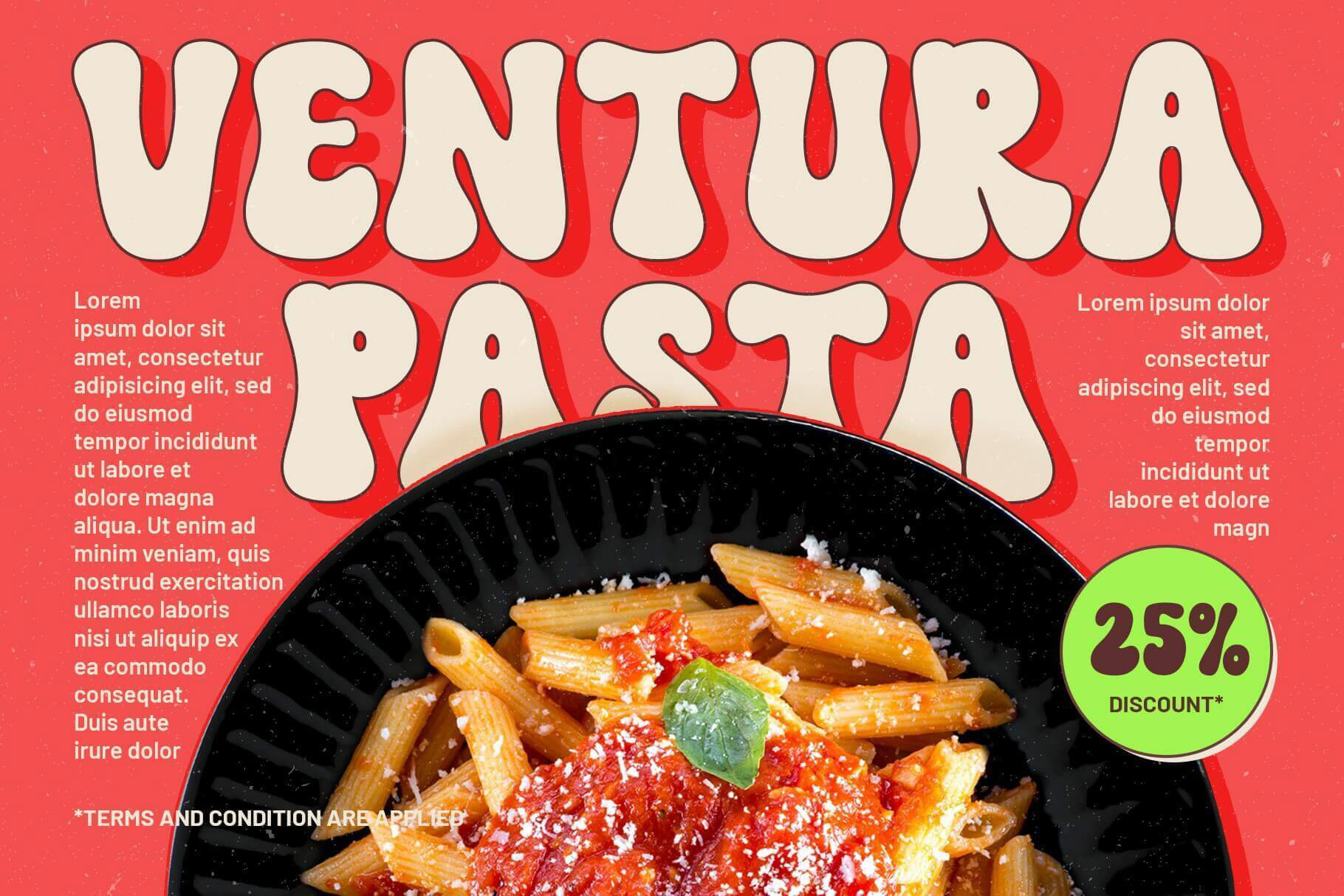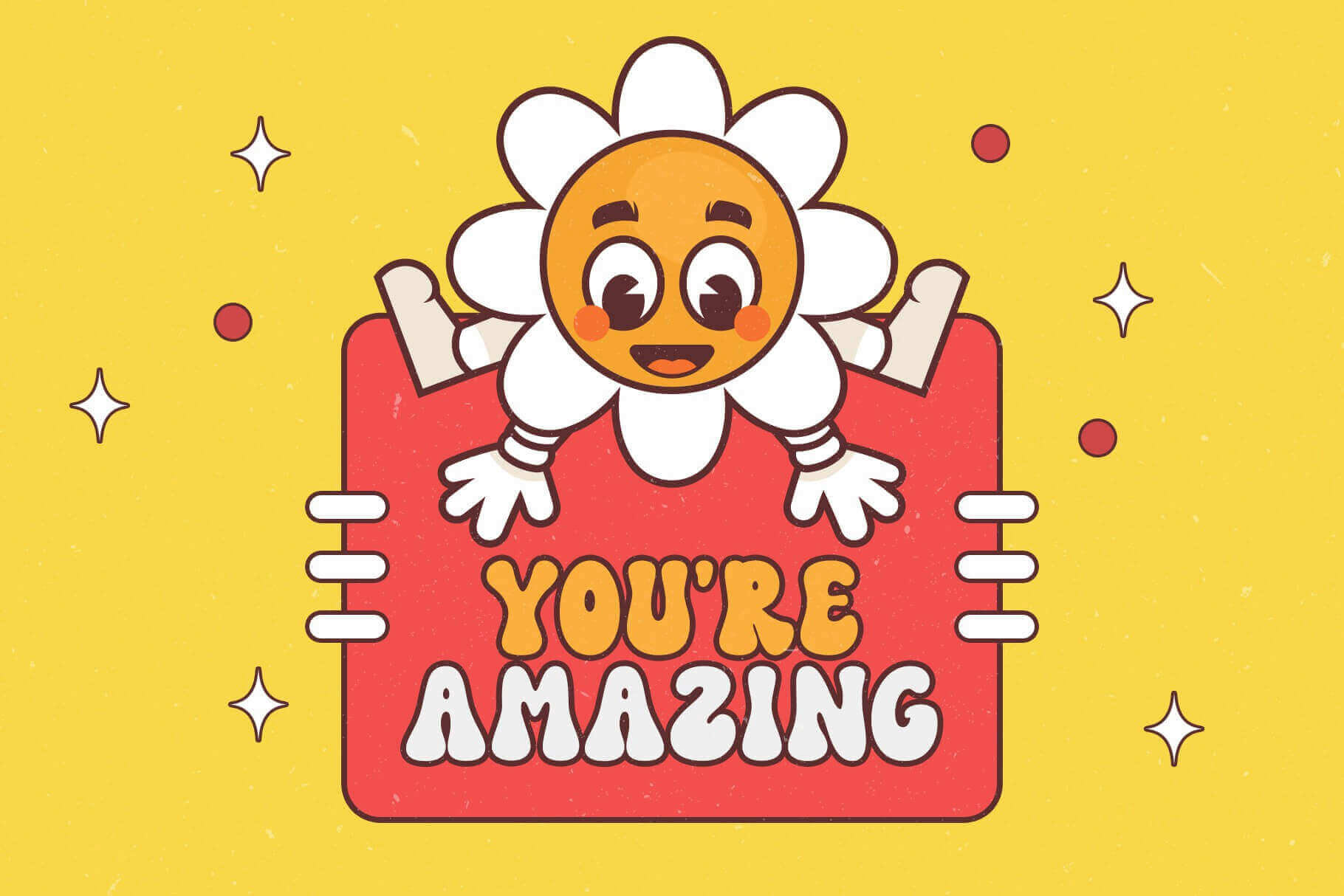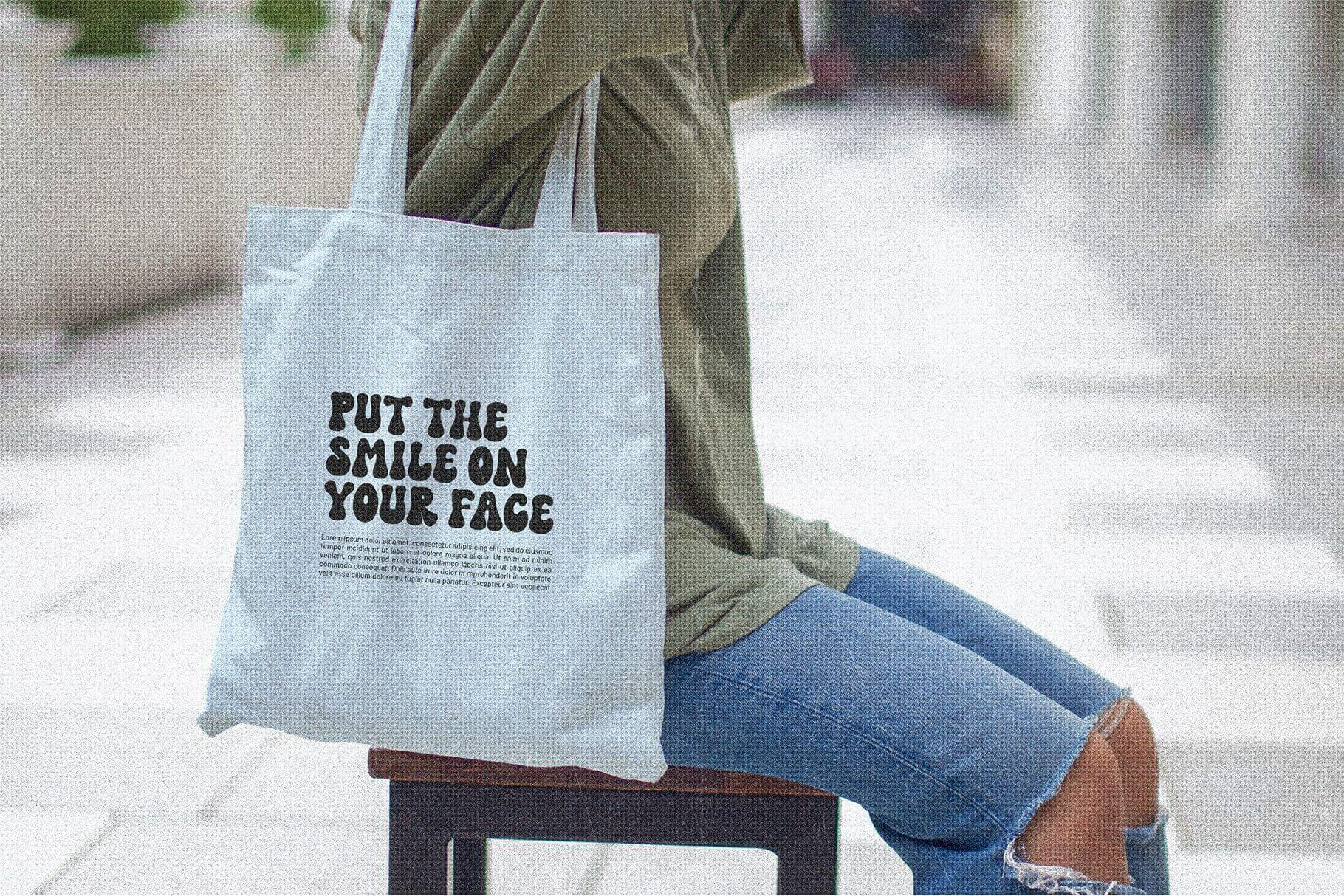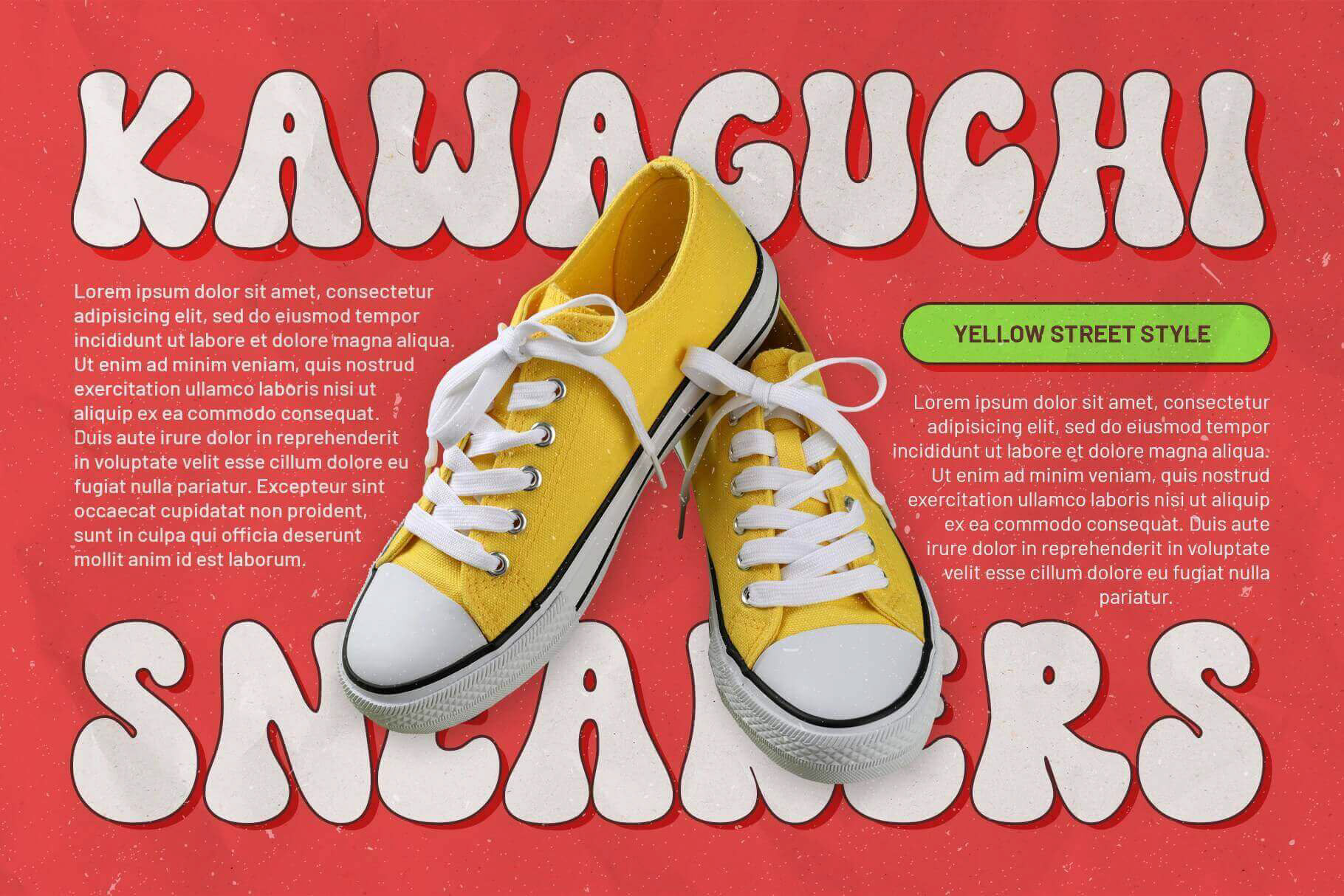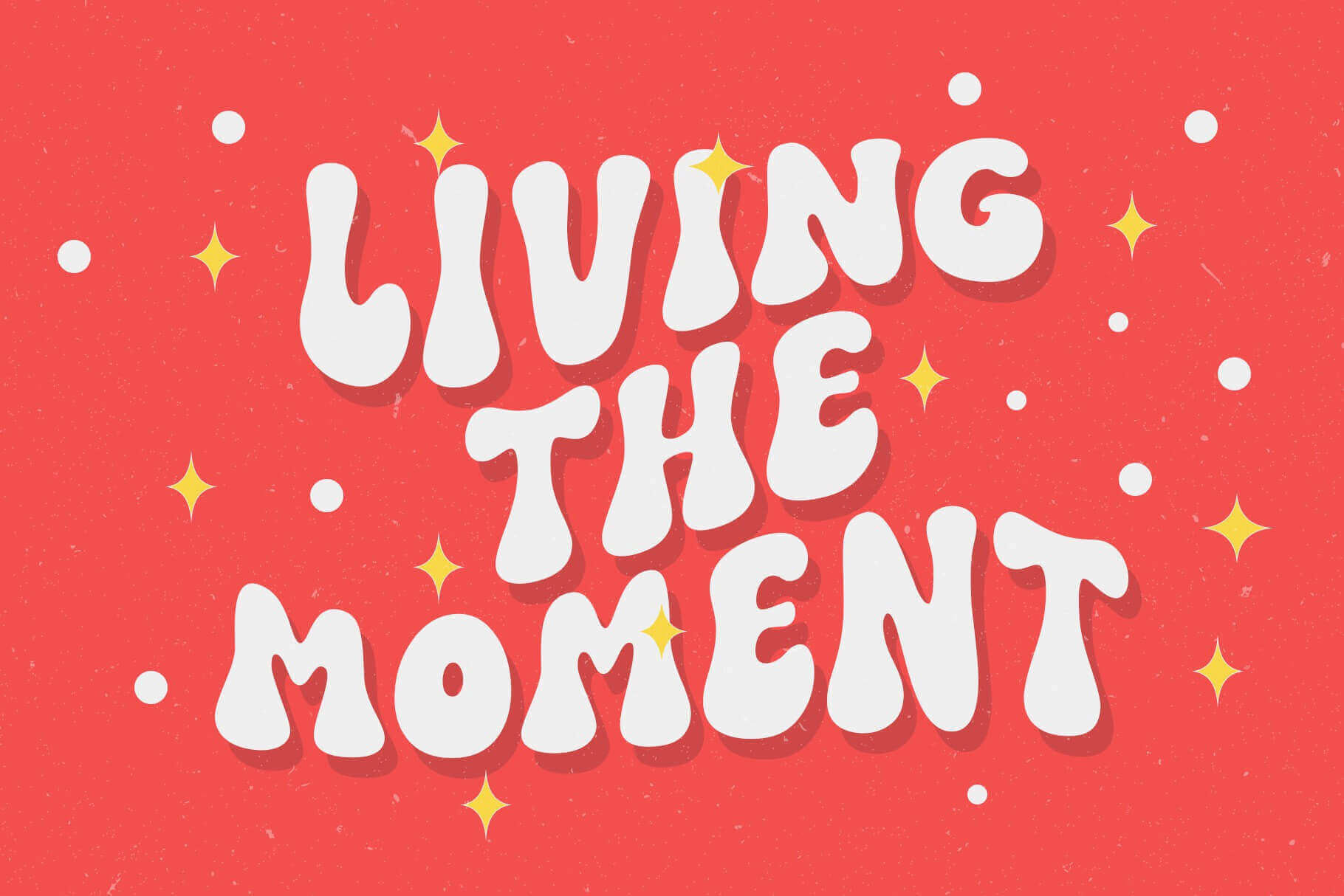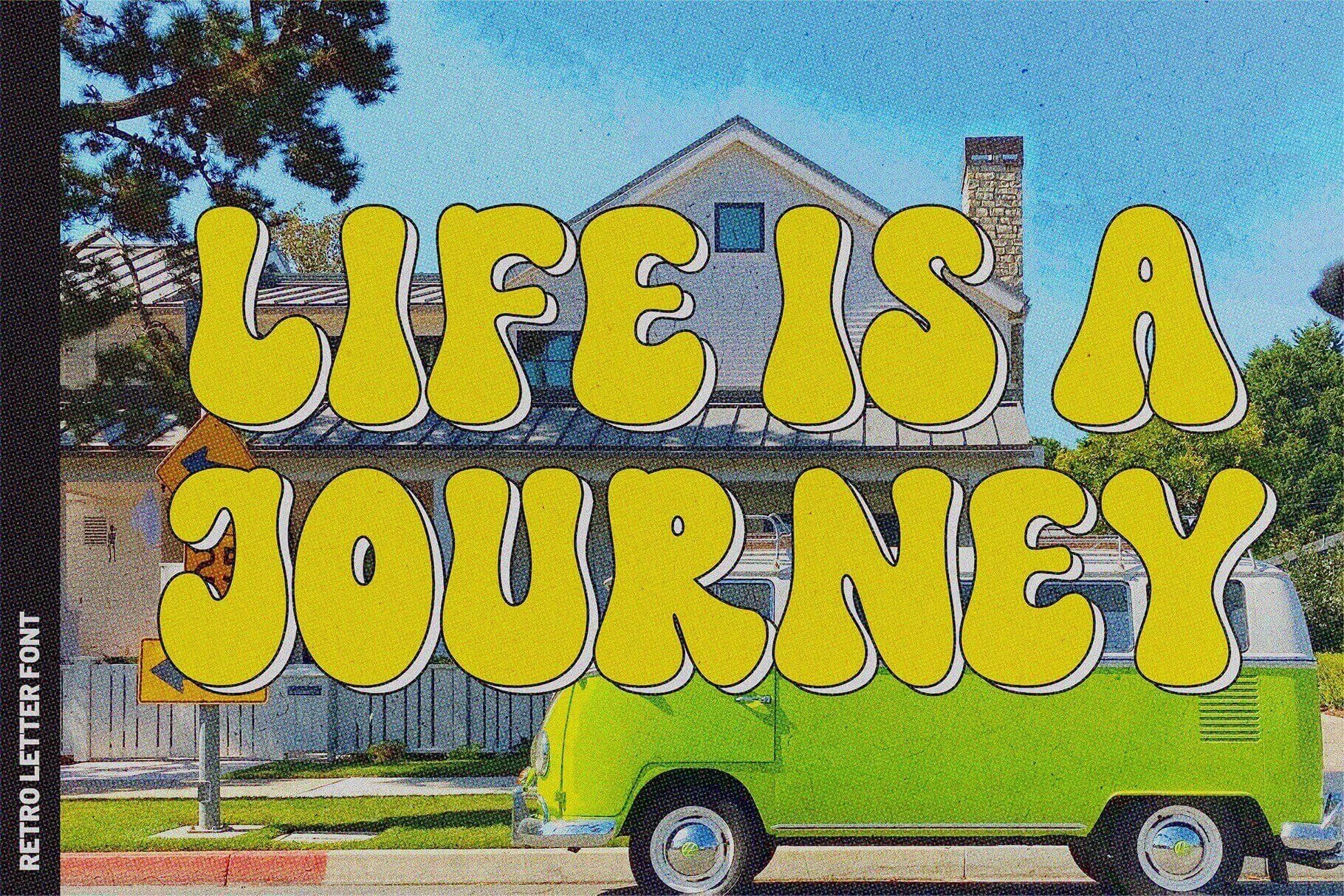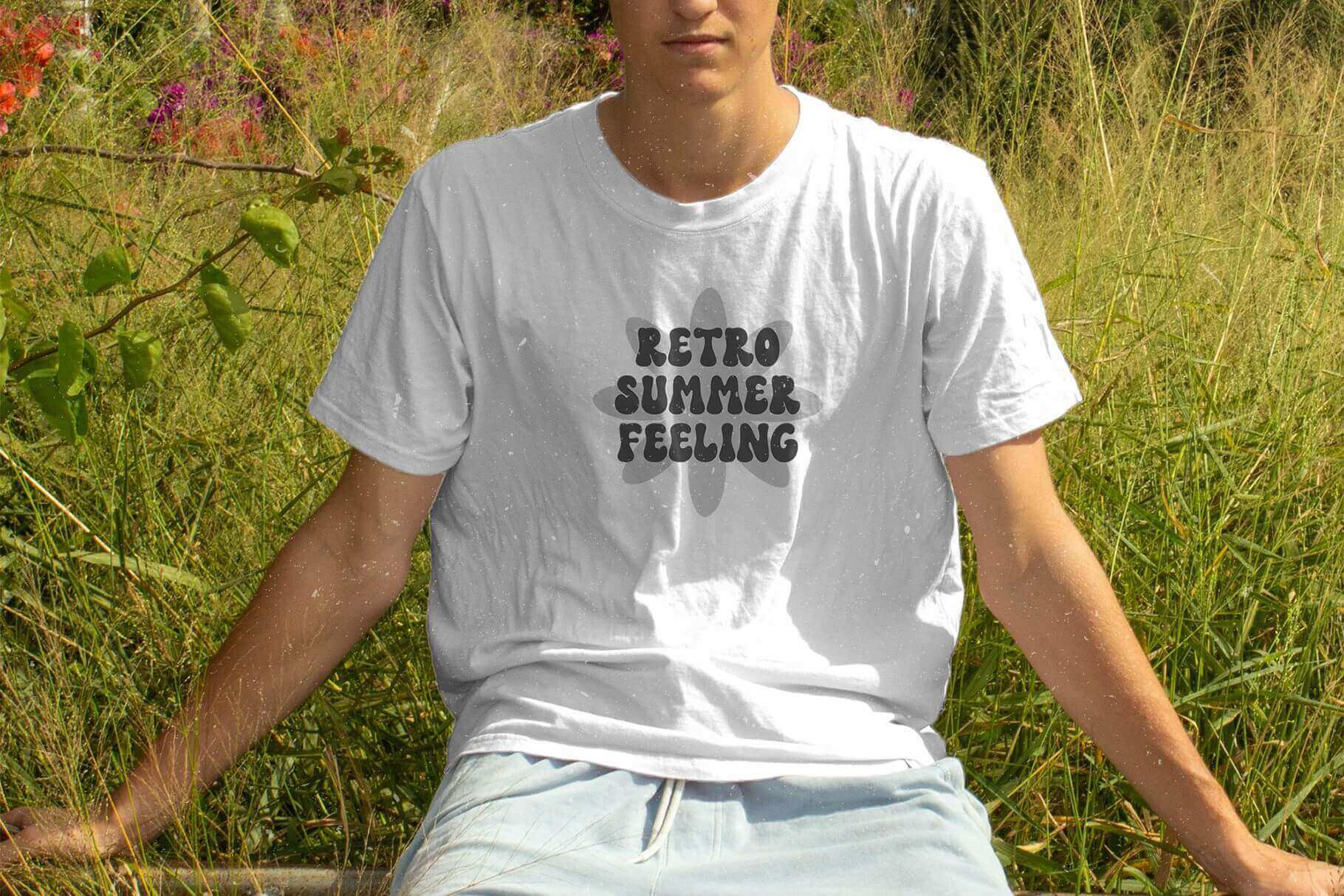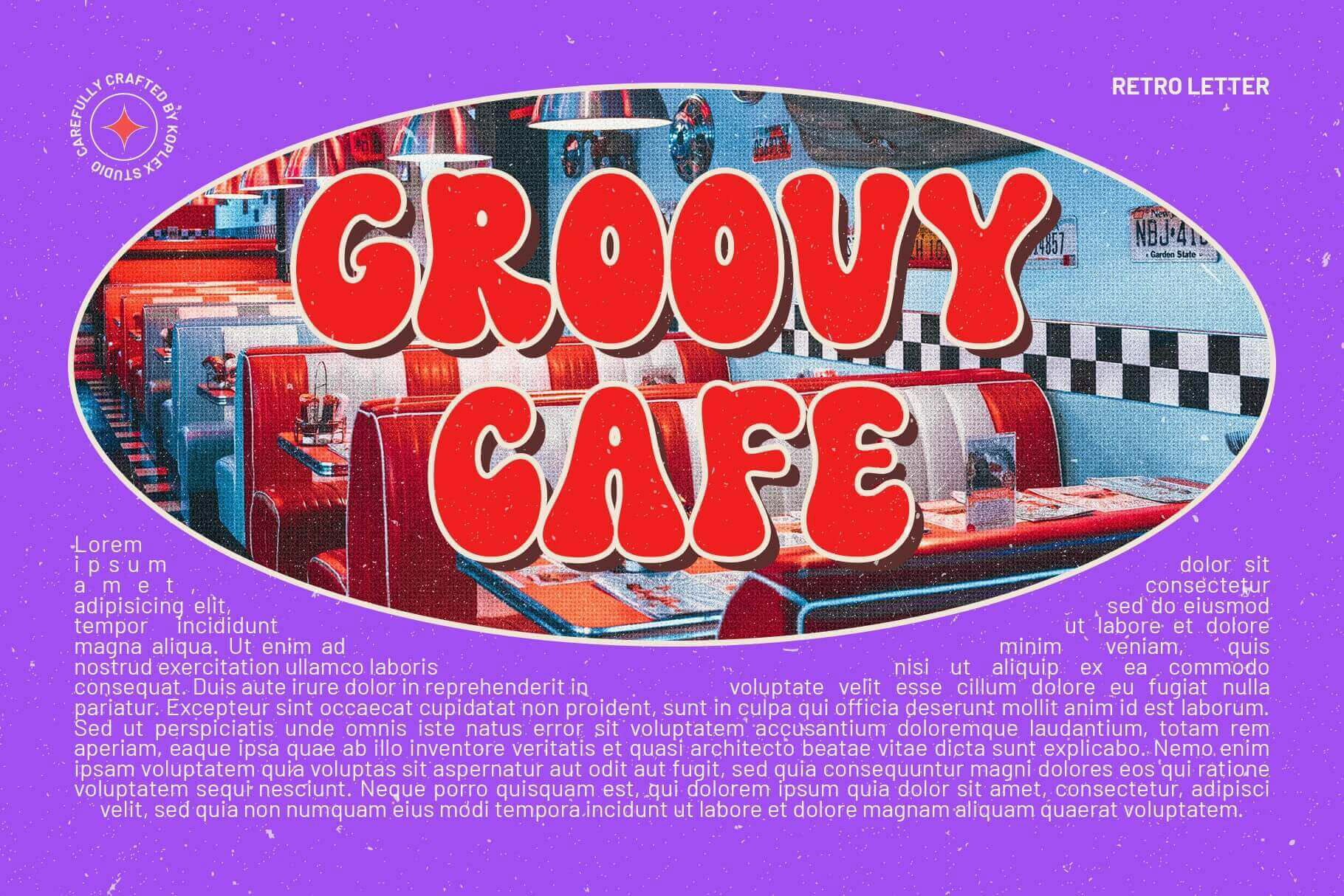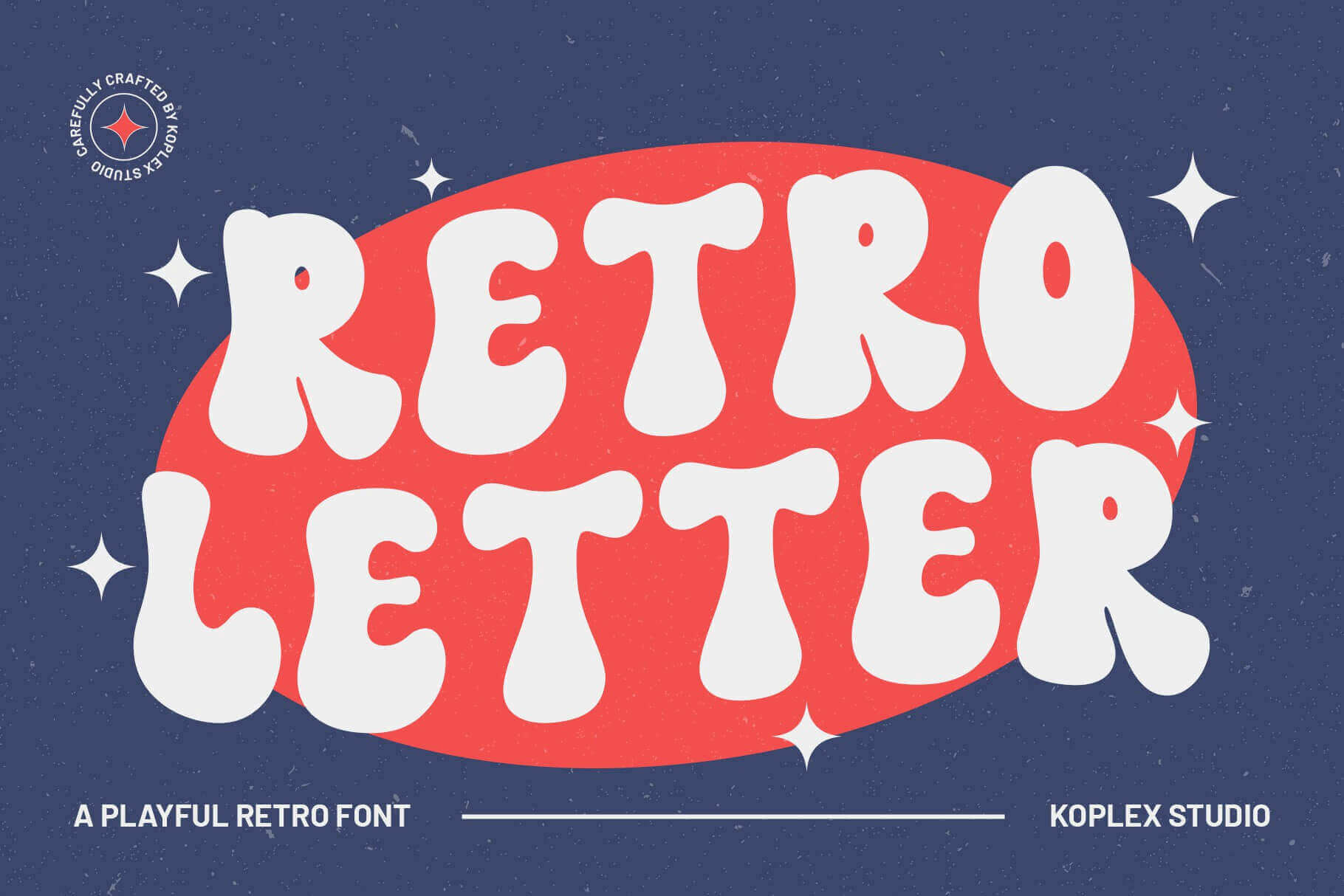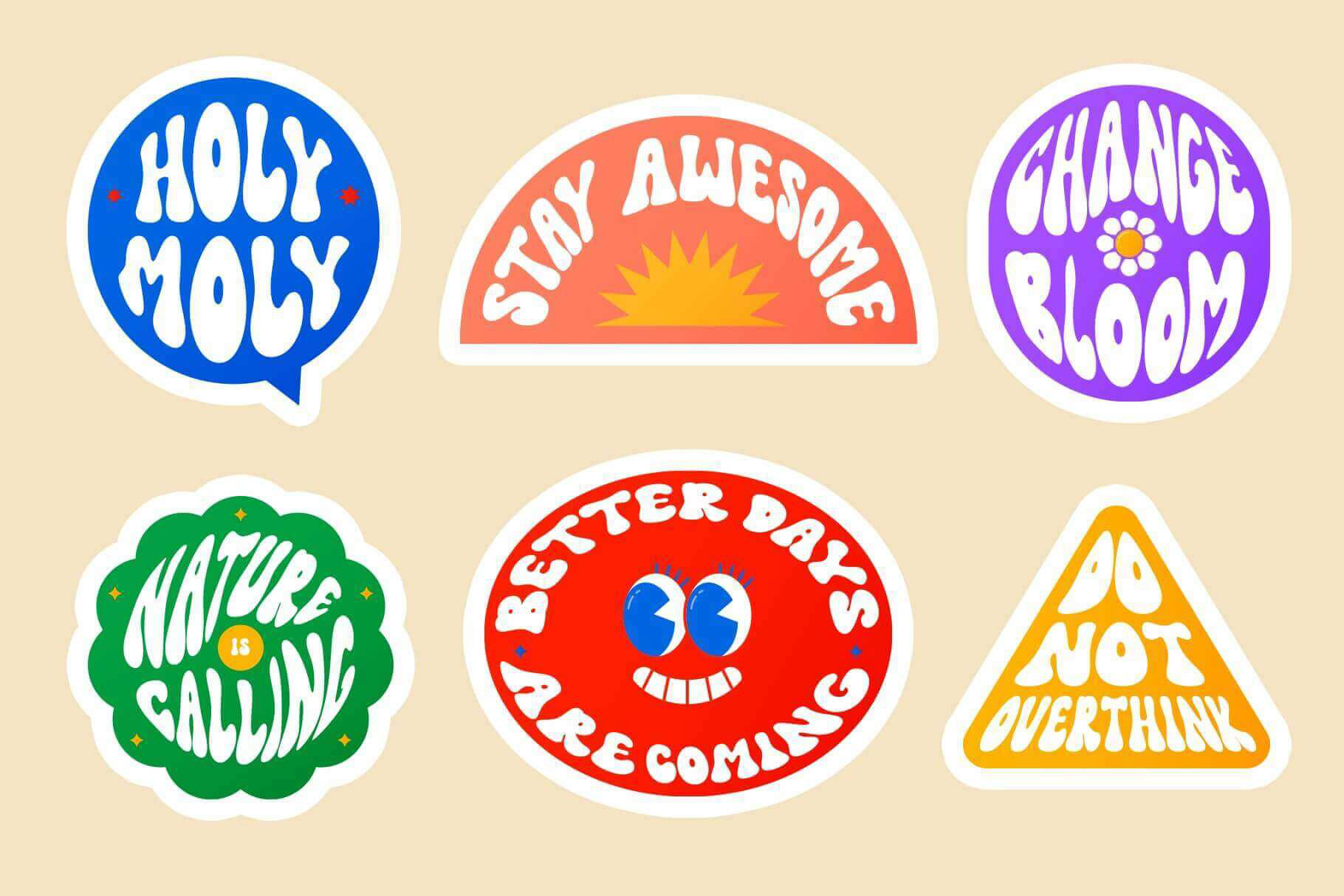
Retro Letter Font - A Playful Retro Experience
Retro Letter Font is your ultimate gateway to playful retro vibes! Crafted with love and attention to detail, this font perfectly blends the nostalgic charm of the '60s and '70s with a modern twist. It’s the perfect choice for creative projects that need a fun, vintage aesthetic. From apparel to stickers, Retro Letter Font adds life to your designs!
Unleash Retro Creativity!
1. Groovy Headlines
Bring your projects to life with bold and bubbly letterforms that make headlines pop! Whether it's for posters, logos, or advertisements, Retro Letter Font ensures your text stands out.
2. Retro Apparel Vibes
Customize your T-shirts with style. With Retro Letter Font, you’ll have everyone rocking the retro summer feeling!
3. Fun Stickers That Speak Loud
Say it all with quirky stickers! From motivational quotes to fun phrases, Retro Letter Font is perfect for crafting memorable designs.
Why Choose Retro Letter Font?
- Playful and Versatile: Perfect for branding, posters, invitations, and more.
- High-Quality Design: Every character has been carefully crafted to ensure smooth and professional results.